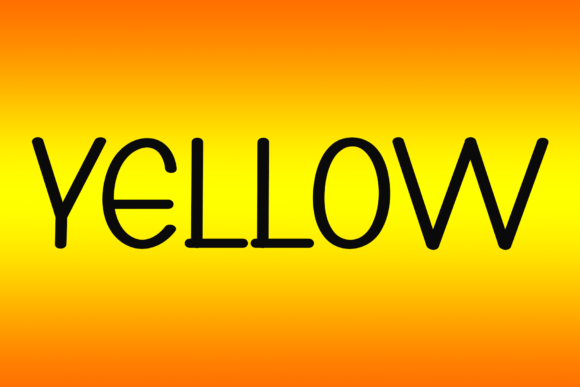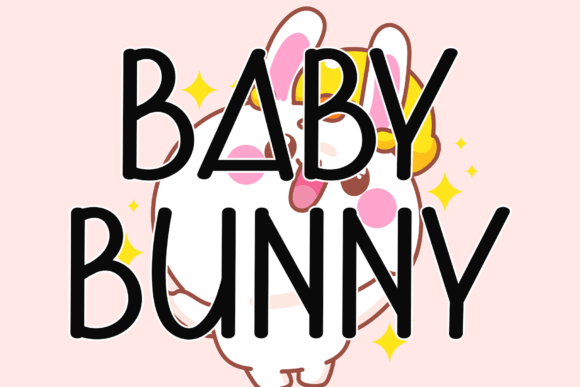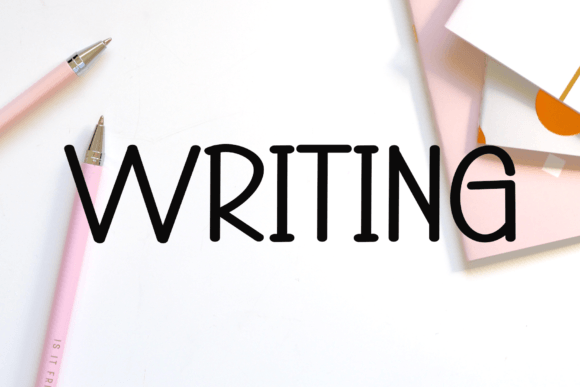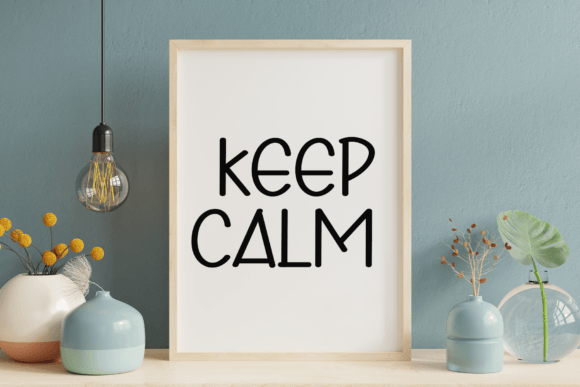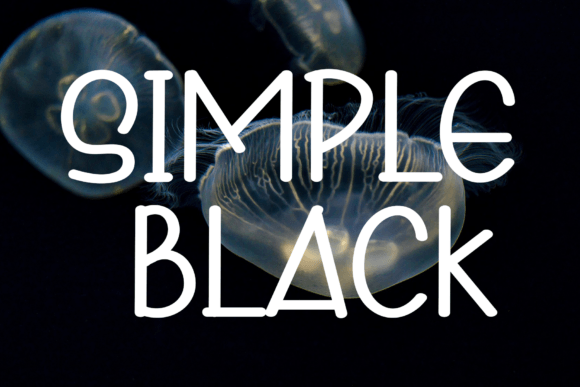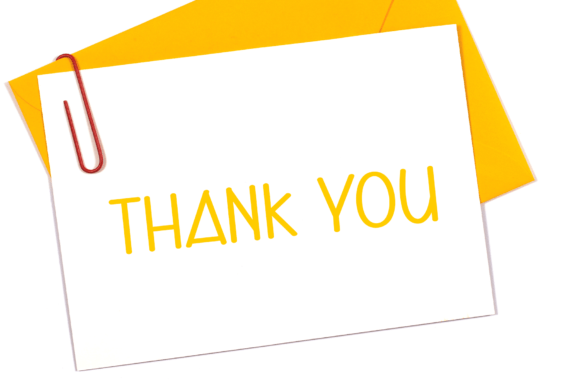
Have you ever sat in front of a blank sheet of paper or a blank screen, staring at the cursor, waiting for inspiration to strike? That’s exactly where I was when I discovered Animation Font – a cool and modern Sans Serif font that completely transformed my design process.
Animation Font is more than just a font; it’s a versatile tool that can be used for various creative projects, from digital designs to crafts, presentations, and greeting cards. With its sleek and modern design, it’s no wonder why designers and creatives are raving about it.
What makes Animation Font truly valuable is its ability to elevate any design project, giving it a professional and polished look. Whether you’re a seasoned designer or just starting out, Animation Font is a great addition to your toolkit, and it’s sure to become your go-to font for all your creative needs.
Animation Font Key Features
- Resolution: Designed to work well at high resolutions, including Retina displays and 4K monitors, ensuring crisp and clear animation.
- Unique Characteristics: Features a unique blend of hand-drawn and digital techniques, resulting in a dynamic and engaging animation effect.
- Customization: Allows for extensive customization options, including color, stroke width, and animation speed, to match your brand’s identity.
- Compatibility: Compatible with most popular animation software, including Adobe After Effects, Blender, and OpenToonz.
Animation Font Review
As a designer, I was excited to try out the Animation Font, and here’s my honest review.
- Unique Style: Animation Font has a distinct and eye-catching design that’s perfect for adding a touch of personality to your projects.
- Legibility: The font is surprisingly legible, considering its unique style, making it suitable for body text and headings.
- Customization: The font offers a range of customization options, allowing you to adjust its behavior and appearance to suit your needs.
- Limited Compatibility: Animation Font may not be compatible with all devices or browsers, which could lead to display issues.
- Overuse: The font’s unique style can be overwhelming if used extensively, so it’s essential to balance its use with other fonts.
- Complexity: The font’s customization options can be overwhelming for beginners, requiring some design experience to get the most out of it.
Overall, Animation Font is a solid choice for designers looking to add a touch of creativity to their projects. While it has some limitations, its unique style and customization options make it a valuable addition to any design toolkit.
Animation Font: A Practical Application Guide
Some tips for getting the most out of Animation Font include:
– Using it to create eye-catching headlines and titles.
– Adding animations and effects to make the text more engaging.
– Experimenting with different font sizes and colors to create visual interest.
– Using it in social media graphics, presentations, and videos.
Alternatives to Animation Font for Designers
Great Vibes is a modern script font that adds a touch of elegance to any design. It’s ideal for headings, titles, and quotes where a cursive feel is desired. Great Vibes has a more refined look compared to Animation Font, making it suitable for formal and professional projects.
Comparison: Great Vibes has a more polished appearance and is better suited for formal designs, whereas Animation Font is more playful and suitable for casual projects.
2. Dancing Script
Dancing Script is a lively and expressive script font that’s perfect for adding a touch of whimsy to designs. It’s great for headings, titles, and promotional materials where a sense of movement and energy is desired. Dancing Script has a similar playful feel to Animation Font, but with a more dynamic and expressive style.